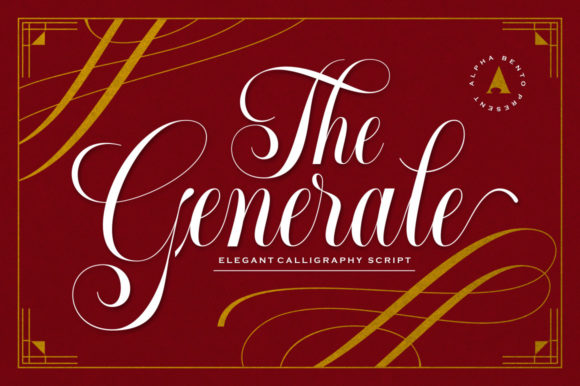
**Journey Through Time with Generale Script: An Ode to Classic Calligraphy**
In a world where digital communication reigns supreme, the art of handwriting has taken a back seat. But what if you could infuse your digital creations with the charm and elegance of timeless calligraphy? Introducing Generale Script, an exquisite script font that captures the essence of classic penmanship with a modern twist.
**A Timeless Masterpiece: Generale Script**
Generale Script is not just a font; it's an ode to the written word. Inspired by the sweeping strokes and intricate flourishes of traditional calligraphy, this font exudes sophistication and grace. Each letter is meticulously crafted to evoke the feel of a handwritten note, adding a personal touch to your digital designs.
**Elevate Your Creations with Unparalleled Charm**
With Generale Script at your disposal, you can transform ordinary text into captivating works of art. Whether you're designing logos, crafting invitations, or creating social media posts, this font adds an instant touch of elegance and distinction. Its versatile nature makes it suitable for a wide range of projects, from formal documents to whimsical illustrations.
**Experience the Beauty of Seamless Script**
Generale Script is meticulously designed to ensure a smooth and cohesive flow. The letters seamlessly connect, creating a harmonious rhythm that draws the reader's eye across the page. This fluidity makes it the perfect choice for long passages of text, such as blog posts, articles, and e-books.
**Unleash Your Creativity with Limitless Possibilities**
Generale Script is more than just a font; it's an open invitation to unleash your creativity. With its extensive range of glyphs and swashes, you can add intricate details and flourishes to your designs, creating a sense of depth and dimension. Explore the endless possibilities and let your imagination run wild.
**A Font for All Occasions: Versatility at Its Finest**
Whether you're creating wedding invitations, designing posters, or crafting social media graphics, Generale Script seamlessly adapts to suit your needs. Its timeless appeal makes it the perfect choice for a wide range of projects, ensuring that you always have the perfect font at your fingertips.